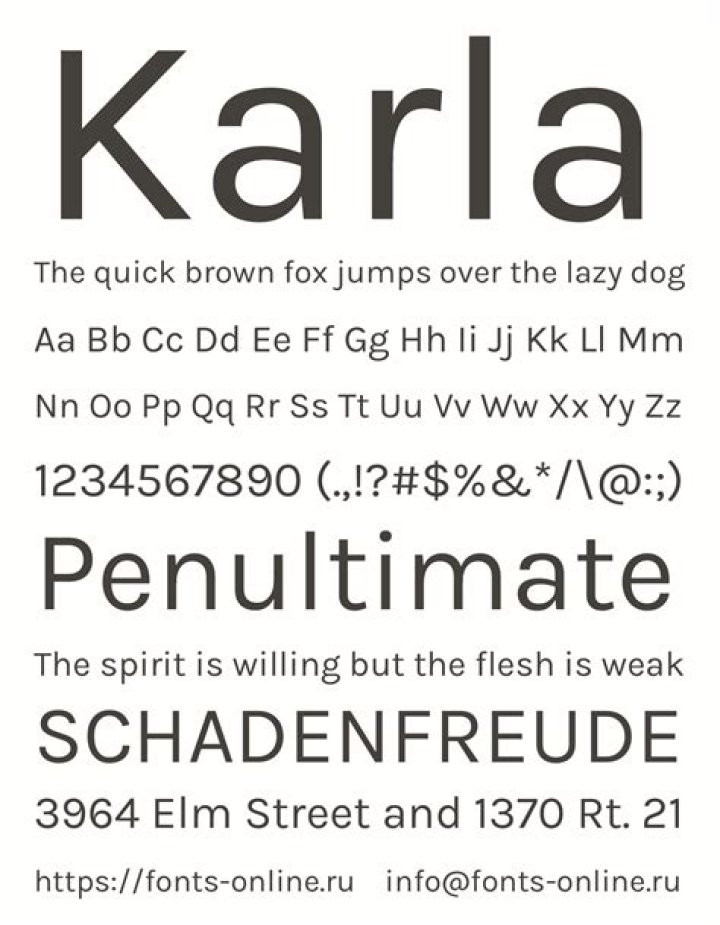
Karla is a grotesque sans serif family designed for the Latin and Tamil scripts. This is the Latin part of the family, which has been expanded now to a variable font with a weight axis ranging from ExtraLight to ExtraBold plus full support of Western, Central, and South-Eastern European languages.